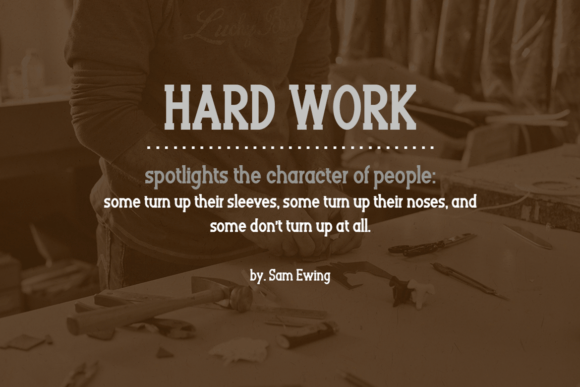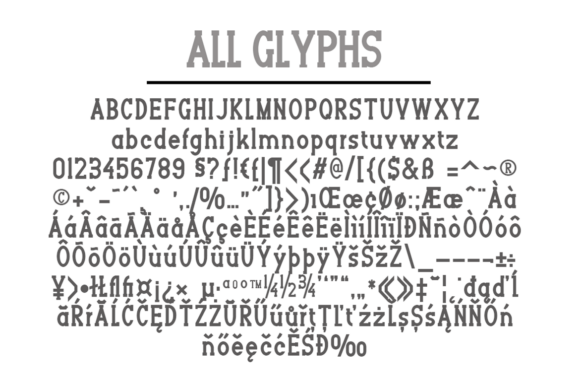
The Berlian Font: A Timeless Choice for Designers
I’ll never forget the time I was working on a project for a prestigious client, and I was struggling to find the perfect font. The client wanted something that exuded professionalism, elegance, and sophistication. I scoured the internet, tried out countless fonts, but nothing seemed to fit the bill. That was until I stumbled upon the Berlian font. ✨
Berlian is a typography with a firm structure, making it incredibly versatile and suitable for a wide range of applications, from official media like banners, magazines, newspapers, and books, to digital platforms and more.
An Honest Review of Berlian Font
What I Love About Berlian Font
- ✅ Clean and Crisp Lines: Berlian’s firm structure gives it a clean and crisp look that’s perfect for body text and headlines.
- ✨ High Readability: The font’s clear and concise design makes it easy to read, even at small sizes.
- ✅ Professional and Elegant: Berlian exudes a sense of sophistication and professionalism, making it perfect for formal documents and designs.
While Berlian is an excellent font, it’s not without its quirks. 🤔 Here are a few things to keep in mind:
- ⚠️ Limited OpenType Features: Berlian has a limited set of OpenType features, which may not be ideal for designers who rely heavily on advanced typography.
- ⚠️ Not Suitable for Body Text in Small Sizes: While Berlian is highly readable, it may not be the best choice for body text in very small sizes (e.g., 8-10pt). In such cases, a font with more generous x-height and looser spacing might be more suitable.
The Backstory of Berlian Font
Berlian font was designed with the intention of creating a typography that exudes professionalism and elegance. Its firm structure and clean lines make it perfect for a wide range of applications. While the exact origin of Berlian font is unclear, it’s likely that it was inspired by traditional typography and designed with modern sensibilities in mind.
Q: What is the Berlian font best suited for?
A: Berlian font is best suited for official media, such as banners, magazines, newspapers, books, and other formal documents.
Q: Can I use Berlian font for body text?
A: Yes, Berlian font can be used for body text, but it’s recommended to use it in larger sizes (e.g., 12pt or larger) for optimal readability.
Q: Is Berlian font suitable for digital designs?
A: Yes, Berlian font can be used for digital designs, including websites, social media graphics, and presentations.